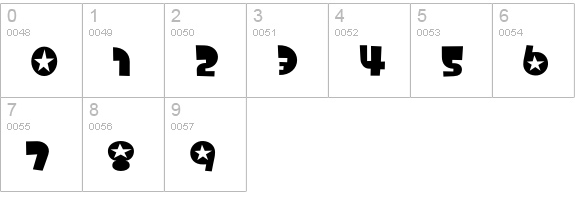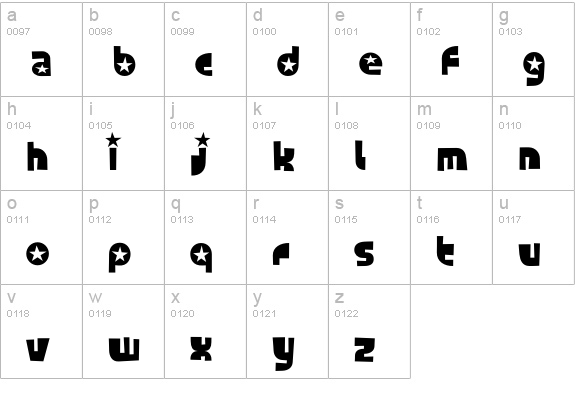
Foonky-Starred Font Details
Introducing Foonky-Starred font, a captivating and stylish typeface that will add a touch of whimsy to your design projects. With its playful yet elegant appearance, Foonky-Starred font is perfect for a wide range of creative applications, from branding to posters to social media graphics. This unique font features a delightful mix of sharp angles and flowing curves, giving it a dynamic and eye-catching look. Whether you're looking to make a bold statement or add a touch of personality to your designs, Foonky-Starred font is sure to impress. The best part? Foonky-Starred font is completely free to download at FontsMarket.com! That's right, you can add this stunning font to your collection without spending a dime. So why wait? Download Foonky-Starred font today and let your creativity shine!